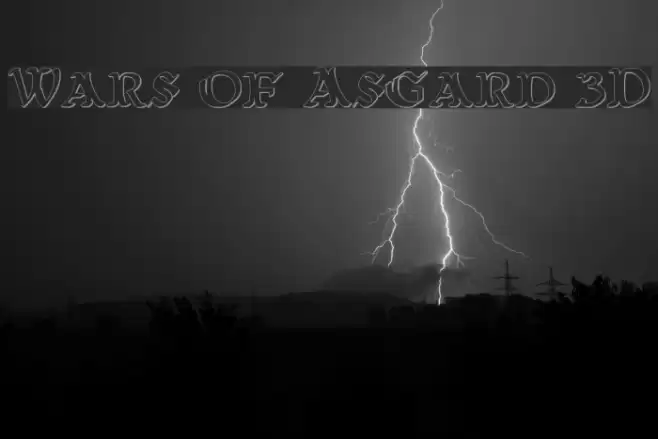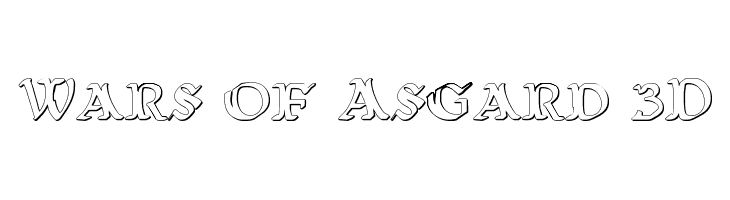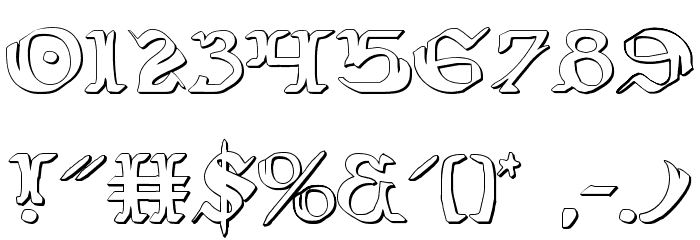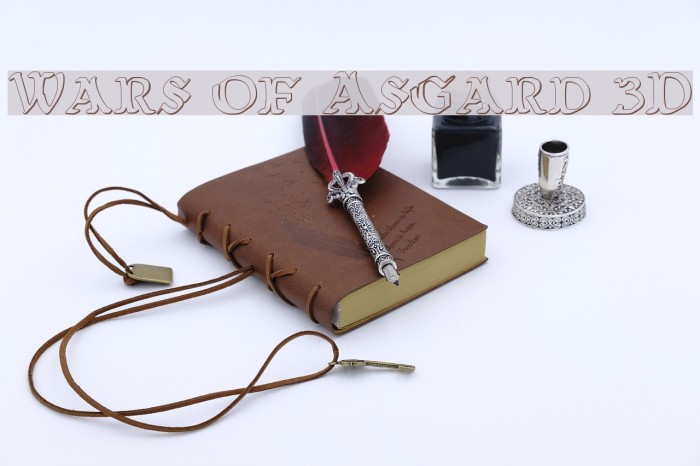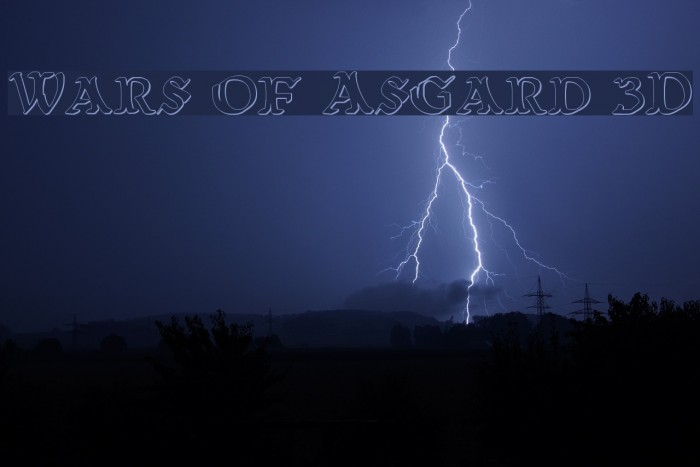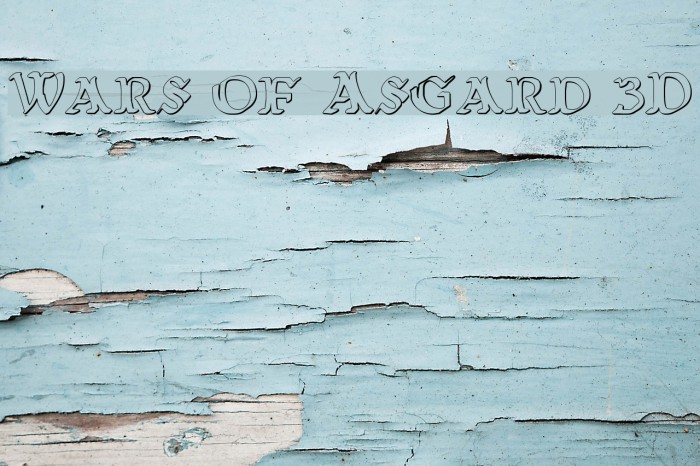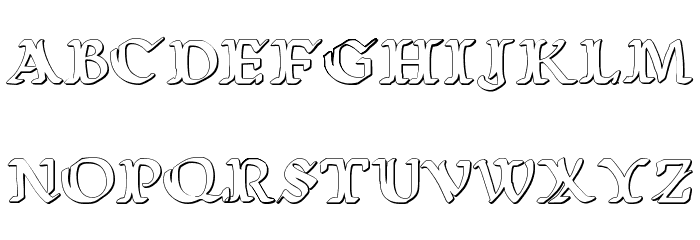
Wars of Asgard 3D Font
Wars of Asgard 3D Description
This font features a bold, decorative style with a three-dimensional effect, giving each character a sense of depth and shadow. The letters are designed with a strong, angular structure, reminiscent of ancient runic inscriptions, which adds a mythical and epic quality to the text. The uppercase and lowercase letters maintain a consistent style, with sharp serifs and intricate detailing that enhance the font's dramatic appearance. The numbers and special characters are equally stylized, ensuring a cohesive look across all text elements. This font is ideal for projects that require a striking and memorable visual impact.
A bold, decorative font with a 3D effect and mythical, runic-inspired design from Gothic fonts.
- Proposed Projects: Perfect for fantasy-themed posters, video game titles, book covers, and branding that requires a dramatic and epic aesthetic.